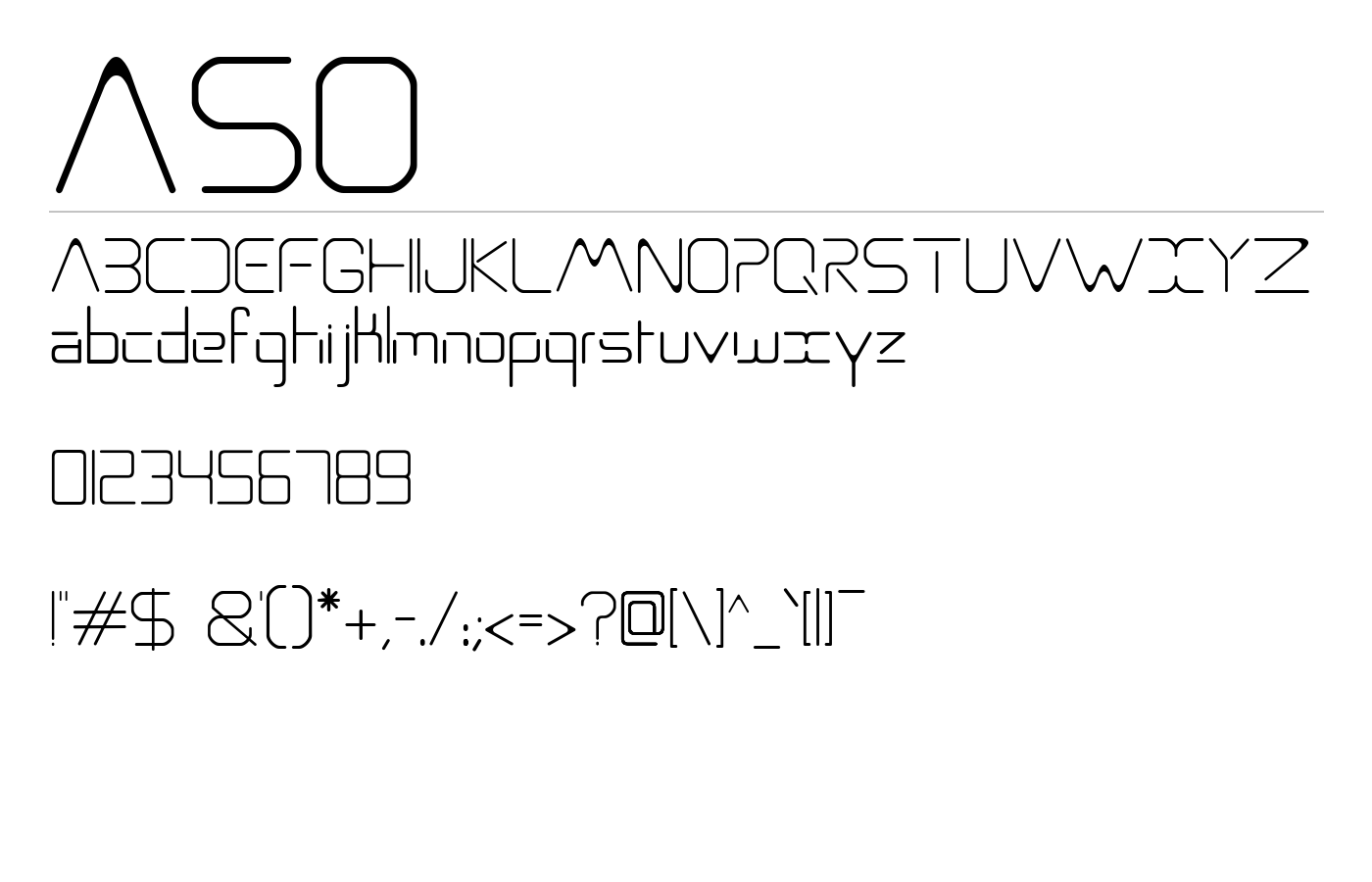
ASO Font is a modern, thin-lined sans serif typeface with a sleek and geometric design. Its tall and narrow letterforms, combined with consistent stroke widths and minimal contrast, give it a futuristic and technical feel, making it ideal for technology brands, editorial headlines, and digital interfaces where a clean, contemporary vibe is desired. This font stands out in settings that require a sophisticated yet minimalist style, especially in logos, posters, and websites.
ASO Font
About ASO Font
| Font family | ASO Font |
| Designer | ARTHUR SANDRINI - FELIPE DOLCE - JONATHAN AMOROSO |